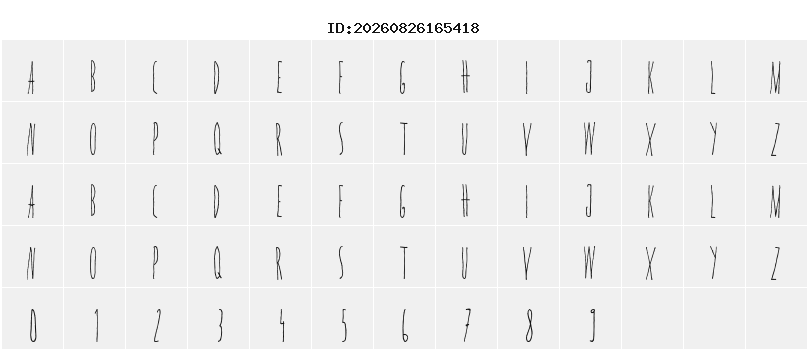
WANNABE Preview
• Font Name: WANNABE
• Full Font Name: WANNABE
• PostScript Name: WANNABE
• Character Count: 85
• Designer: Gorilla Rox
• Manufacturer: PYRS Fontlab Ltd. / Made with FontLab
About WANNABE.otf
WANNABE.otf is a modern, elegant sans-serif font designed for ultimate readability and visual harmony. Perfect for branding, headlines, web design, and print materials.